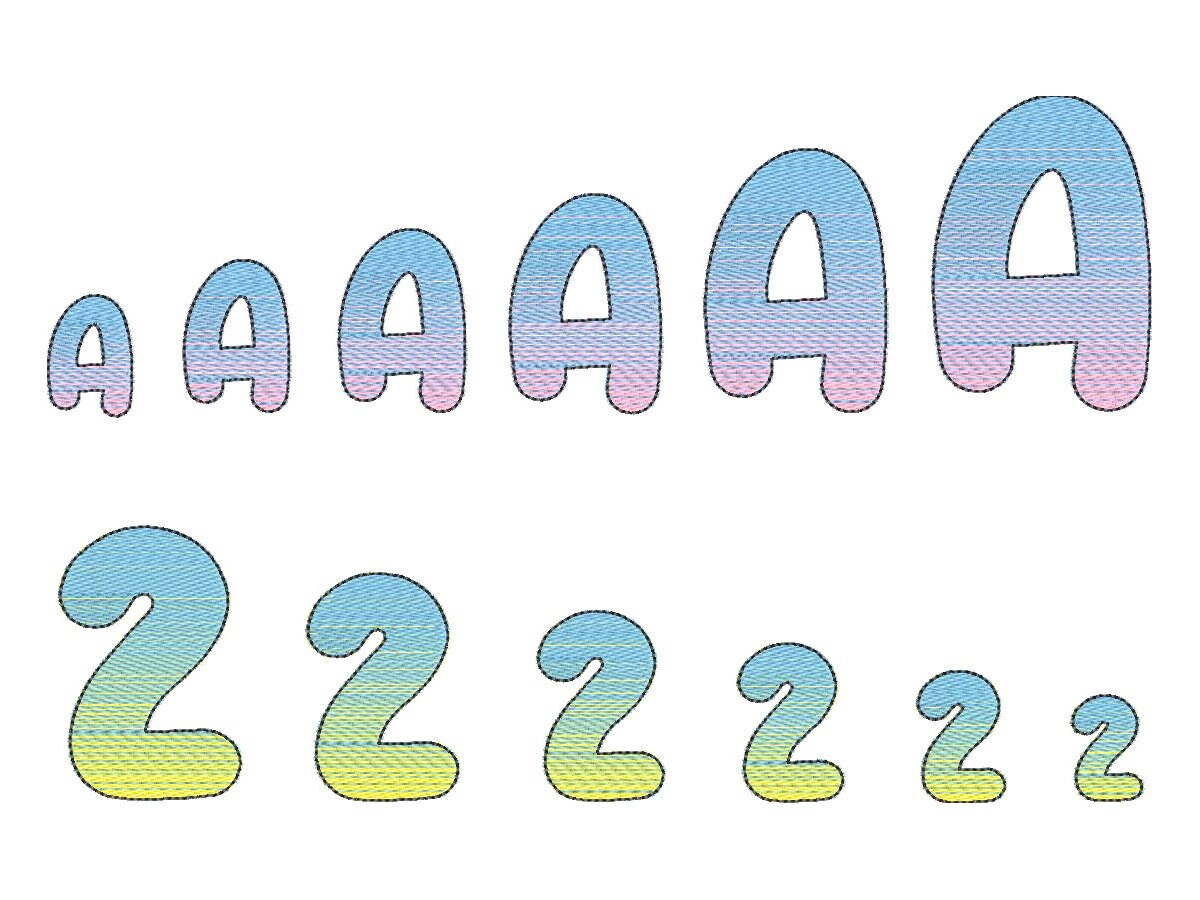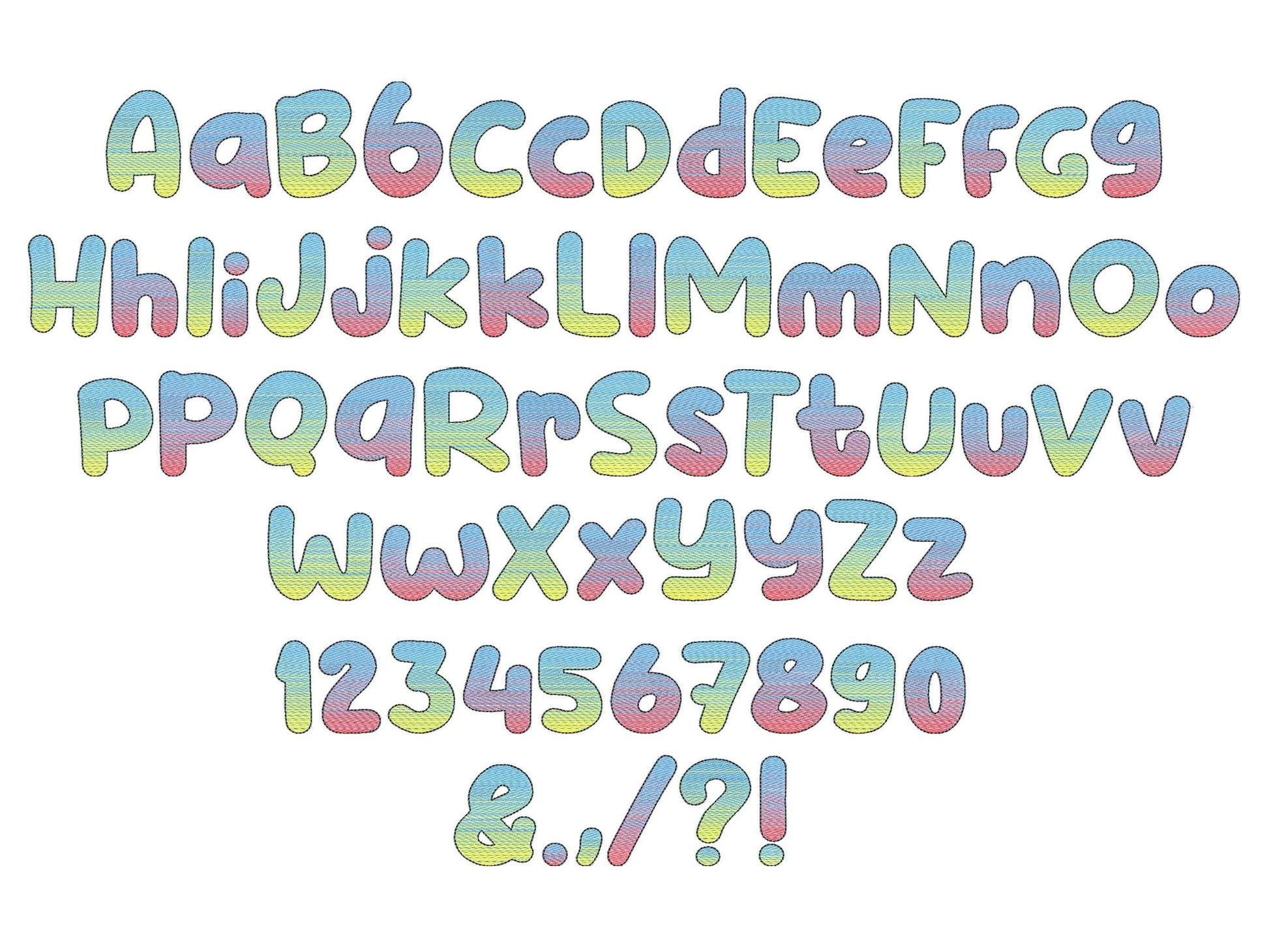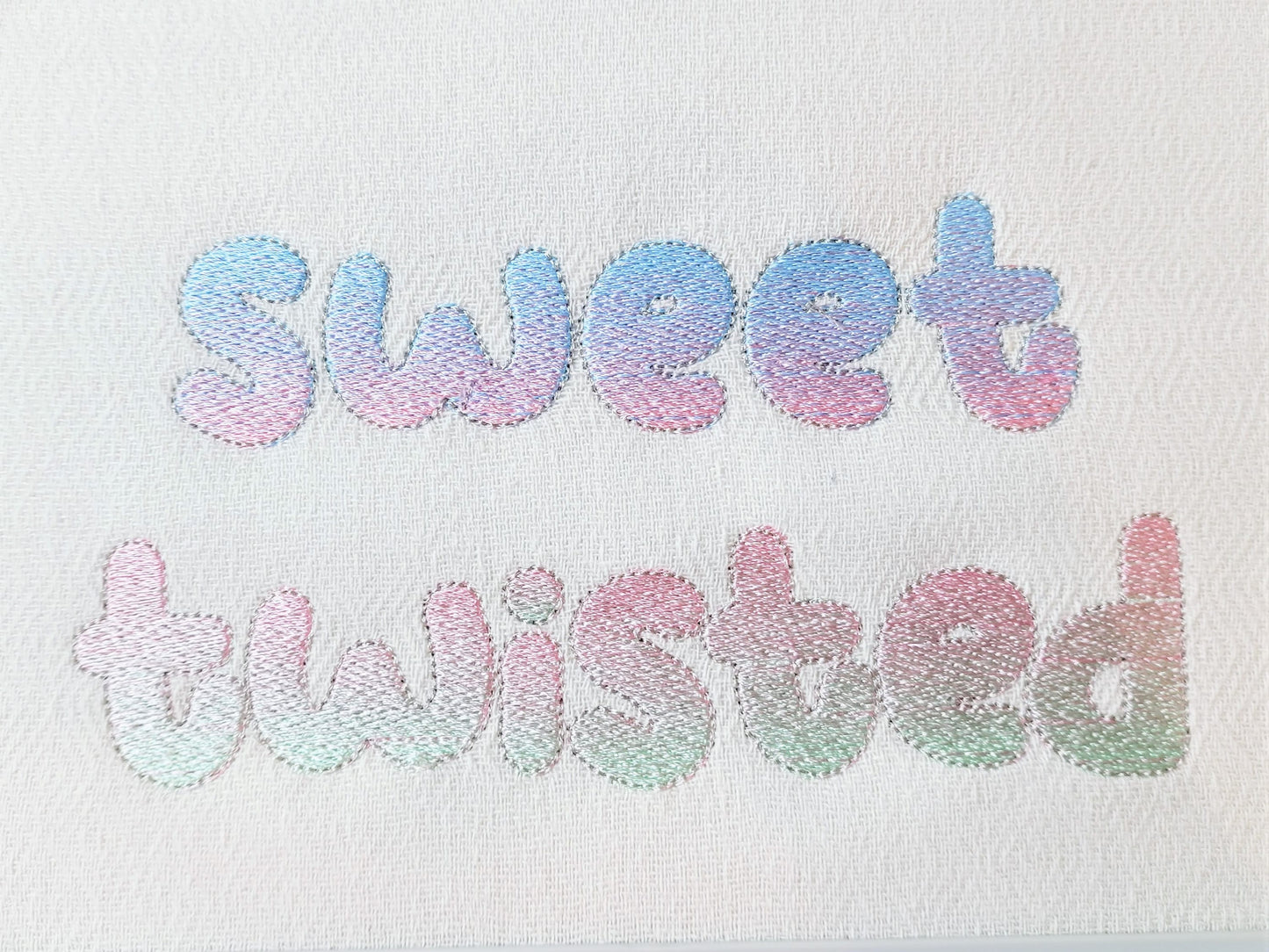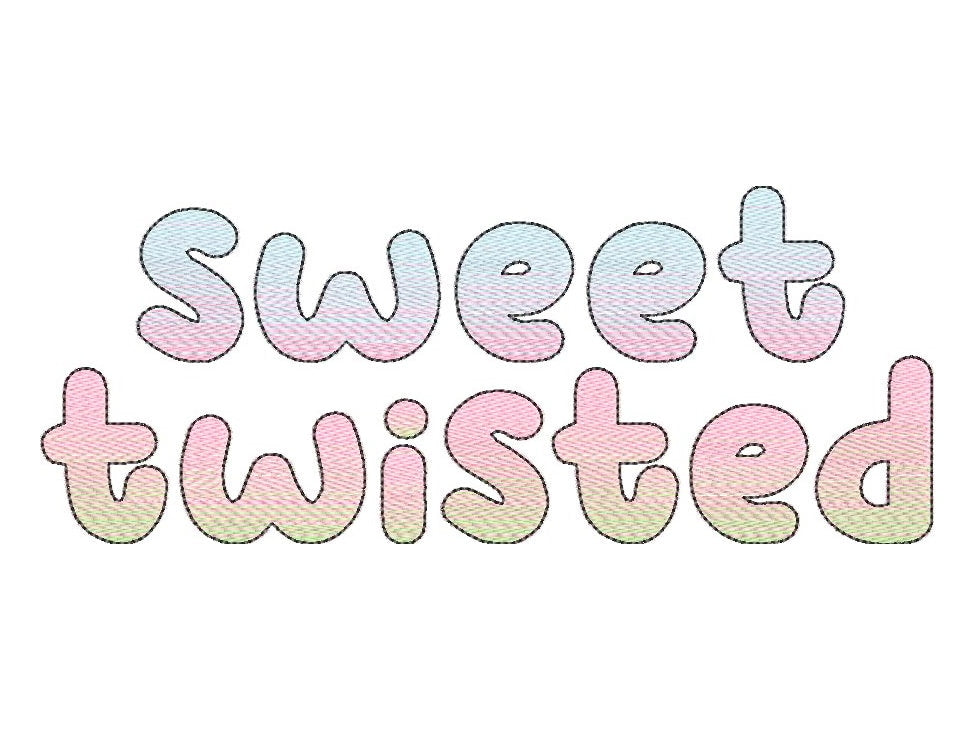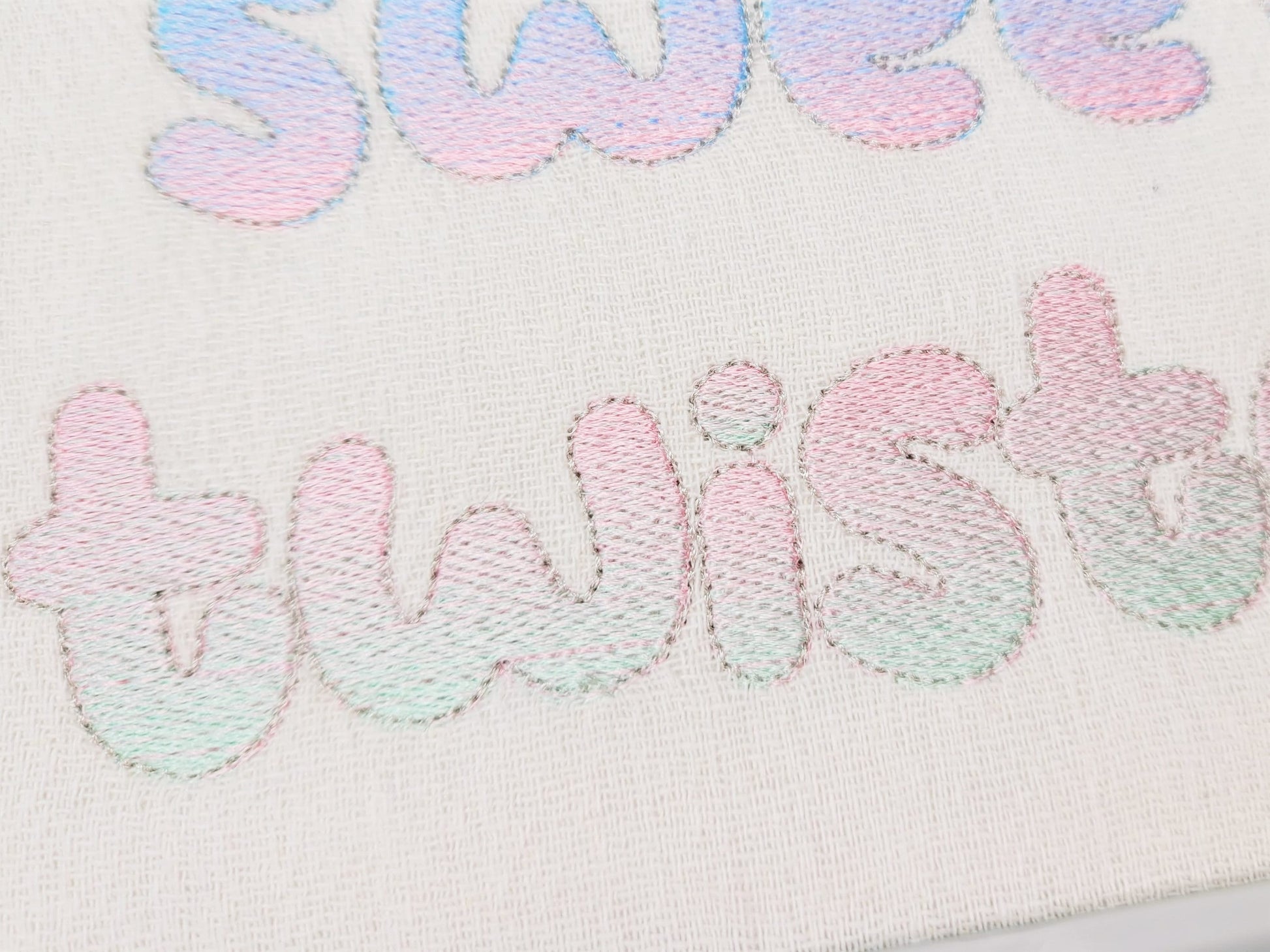
Or click to open the linkAn iridescent bubble font stitched with two ordinary thread colors that blend into an ombre gradient. No special thread needed. Lovely for names and monograms.
The stitch pattern puts more of one color on one side of the letter and more of the other color on the opposite side, so it shimmers all by itself. Uppercase and lowercase letters, numbers and punctuation in six sizes: 1.3, 1.6, 1.9, 2.3, 2.7 and 3.3 inches.